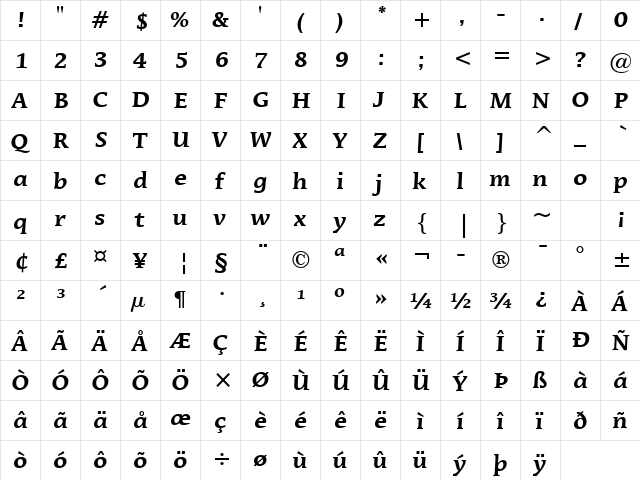
Mirarae BT Bold
Design Context for Mirarae BT Typeface
Mirarae BT takes a measured approach to typography — its balanced proportions and neutral character make it a reliable workhorse for both digital and print work. The heavy weight commands attention and anchors typographic hierarchies.